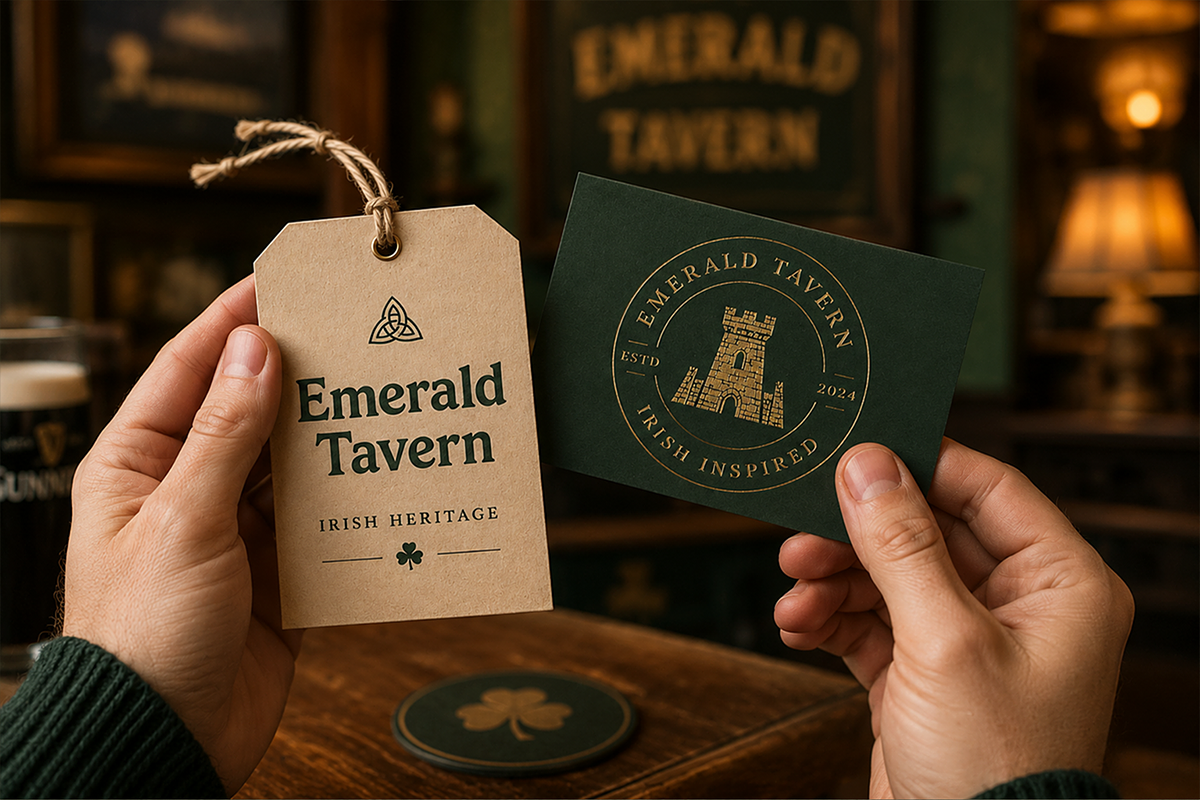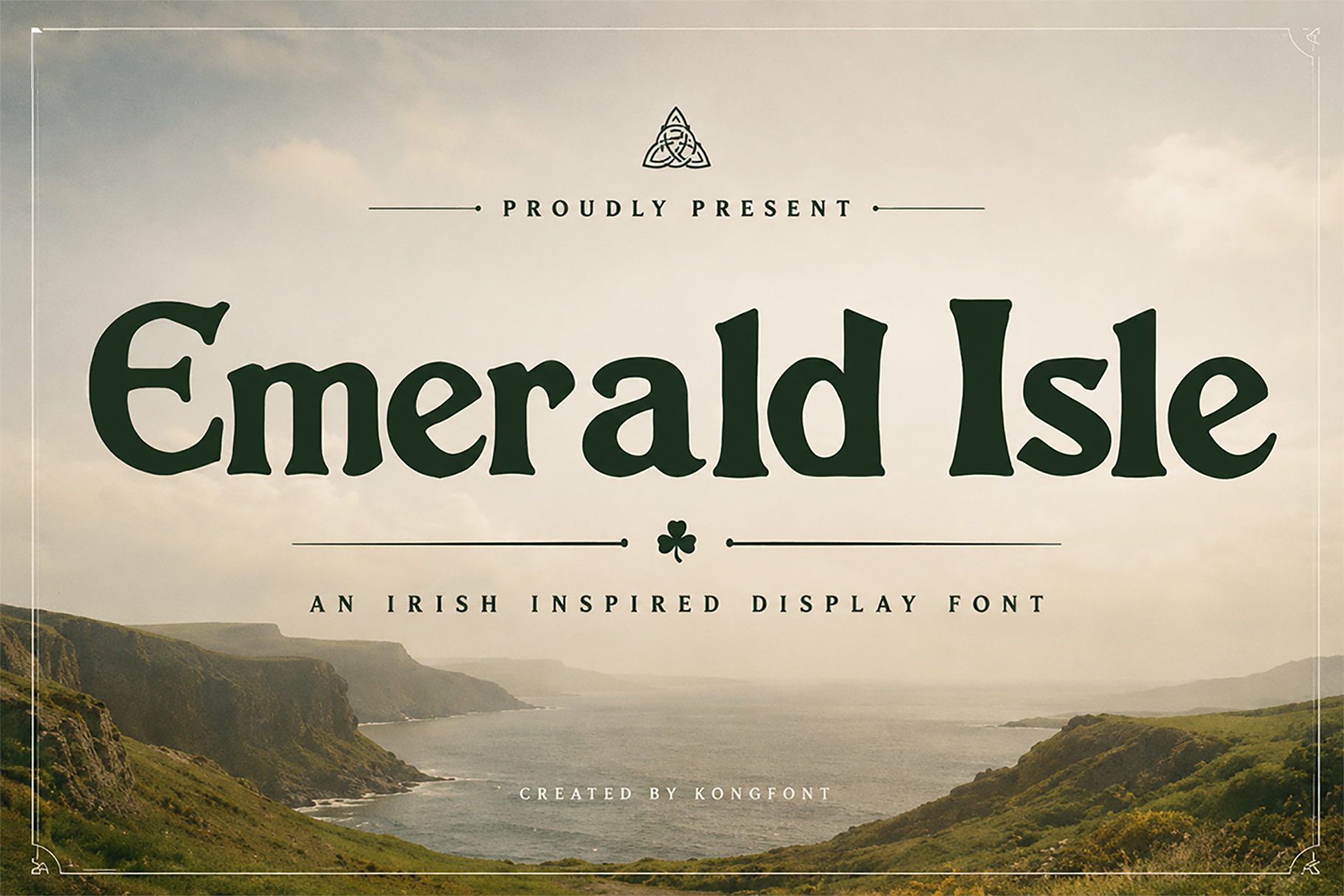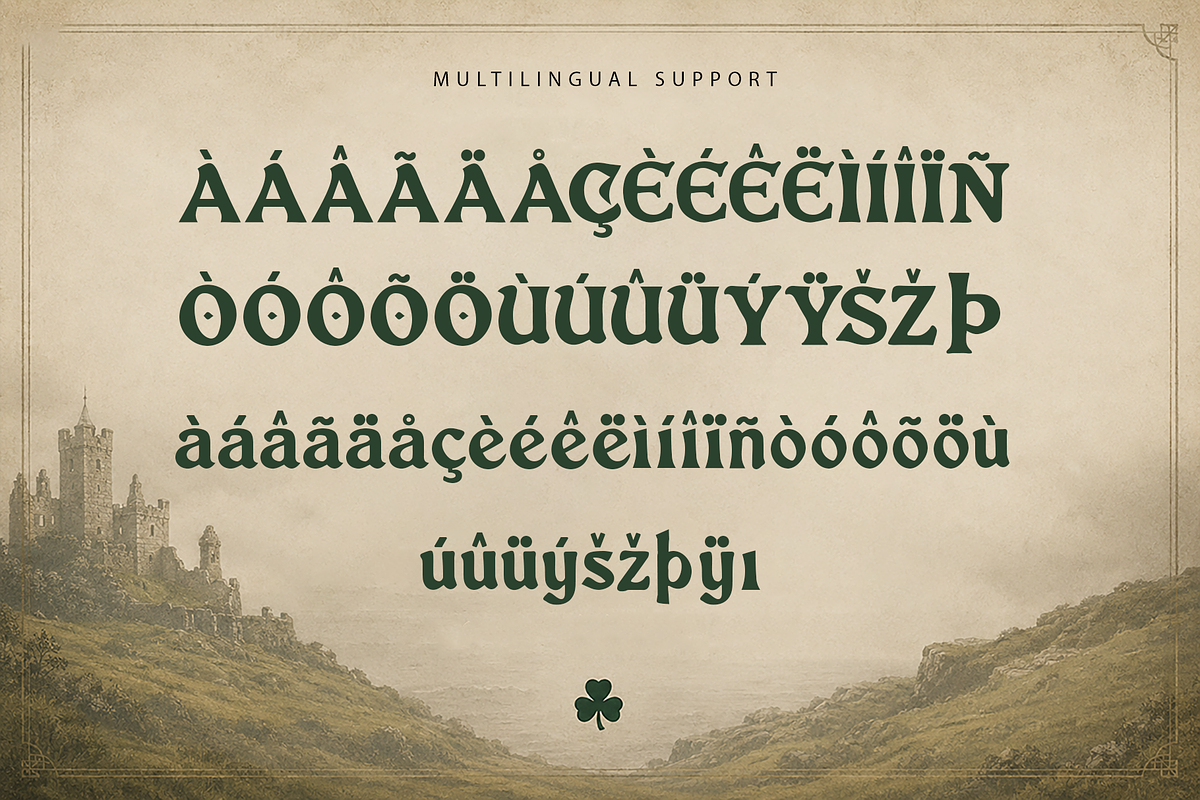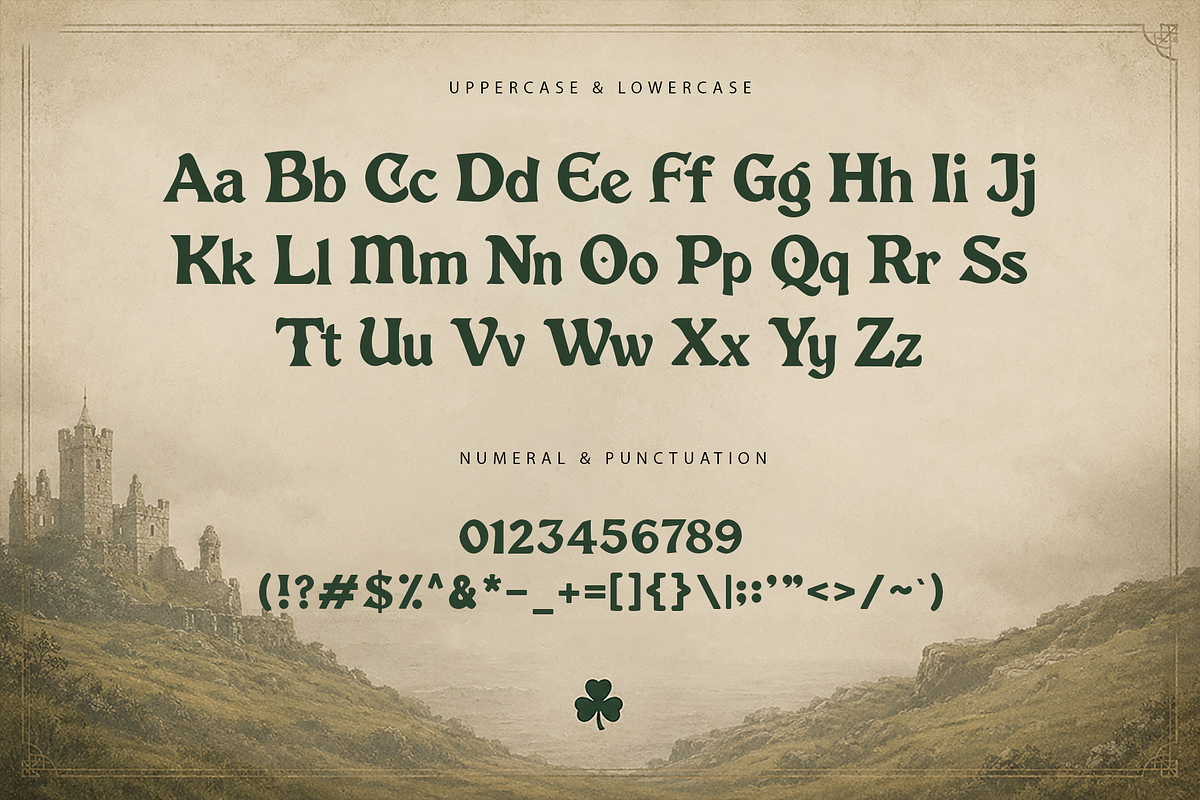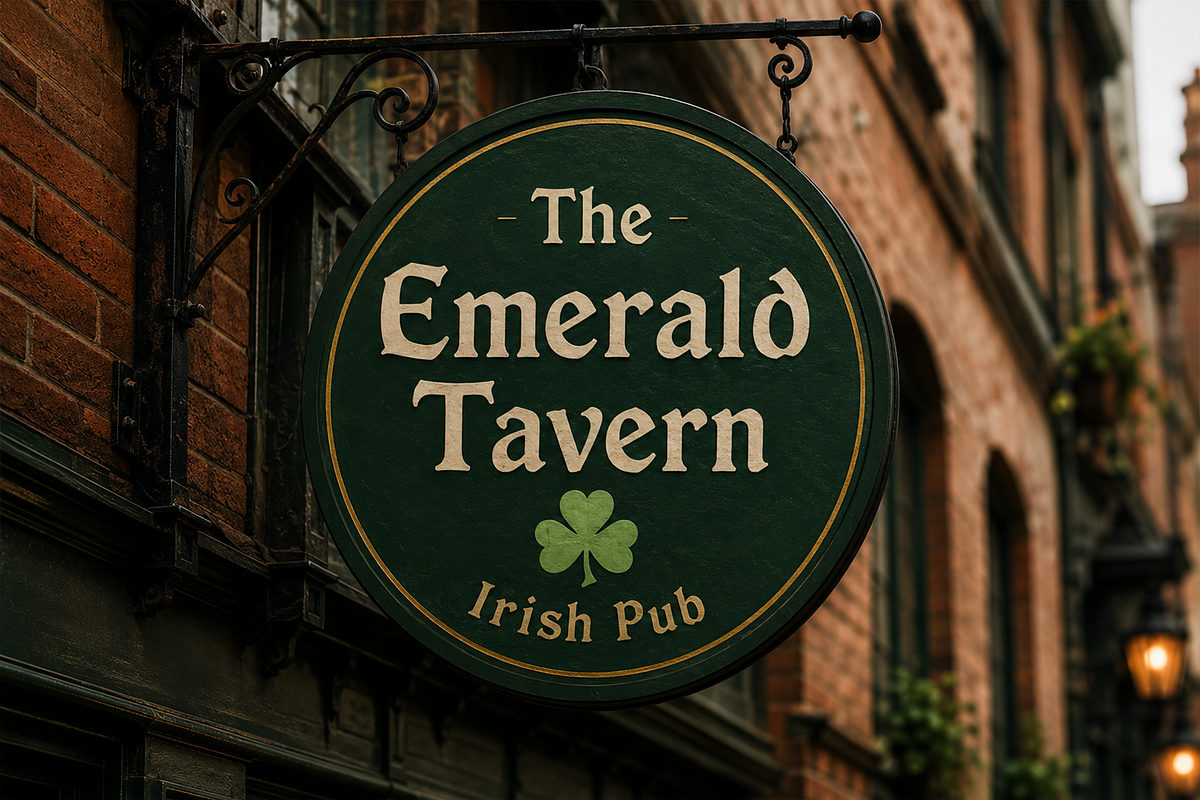
Emerald Isle - Modern Display Font
Emerald Isle is a modern display font designed to blend sophistication, creativity, and contemporary style into one striking typeface. Featuring distinctive letterforms, refined curves, and a confident structure, Emerald Isle delivers a memorable visual presence that stands out across a variety of design applications.
The font includes uppercase and lowercase letters, numerals, punctuation, and multilingual support, ensuring flexibility for both print and digital media. Whether you're crafting a premium brand identity or designing eye catching promotional materials, Emerald Isle adds elegance and distinction to every composition.